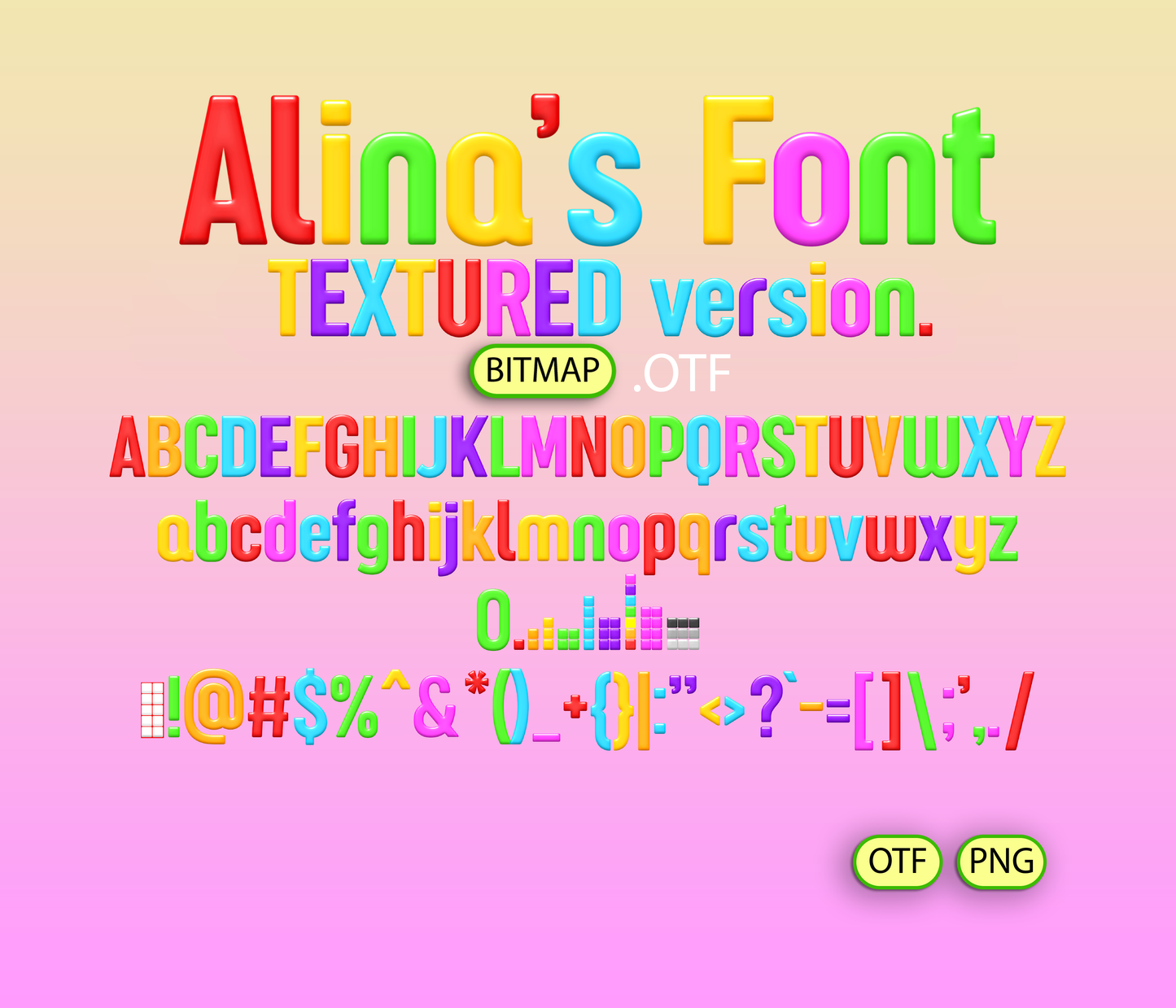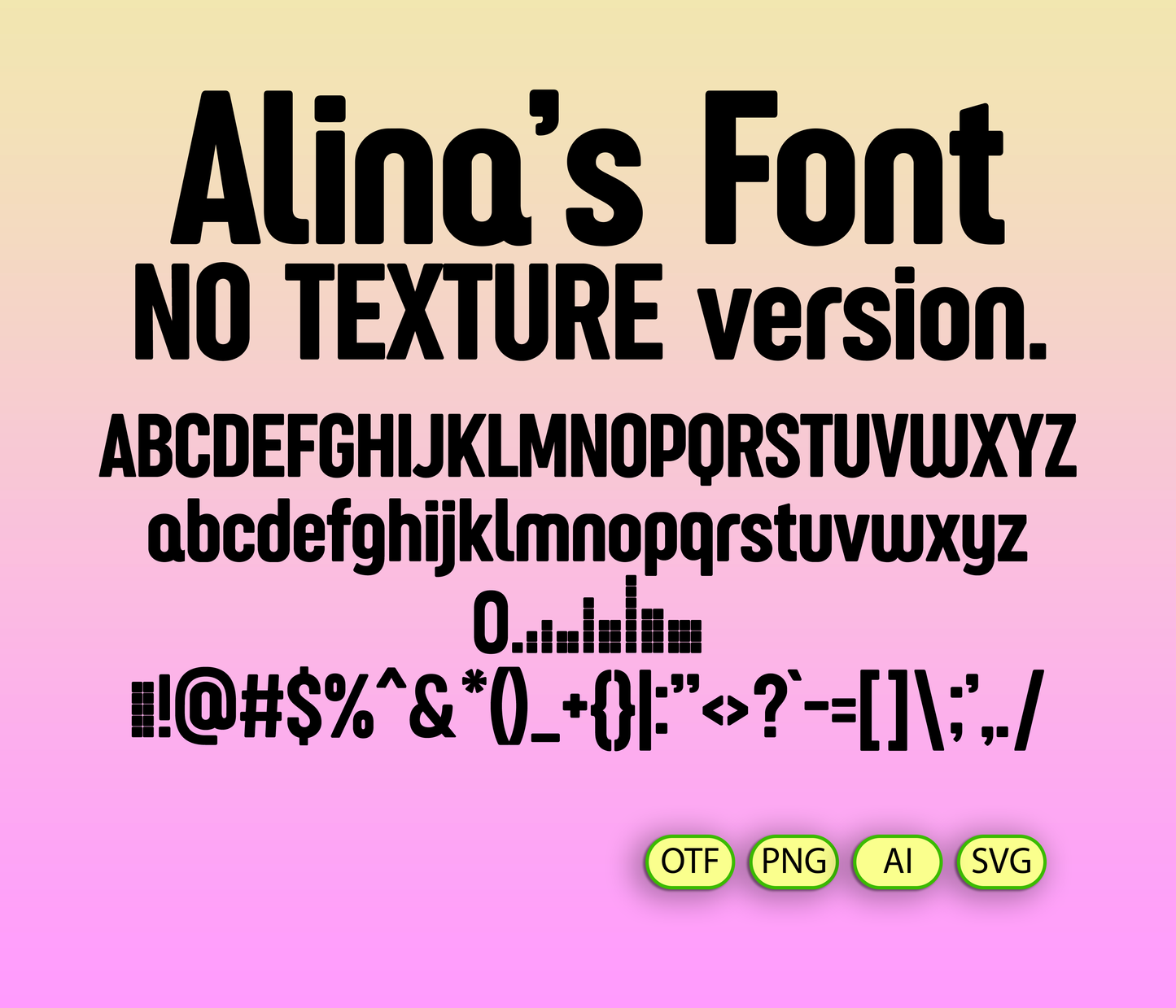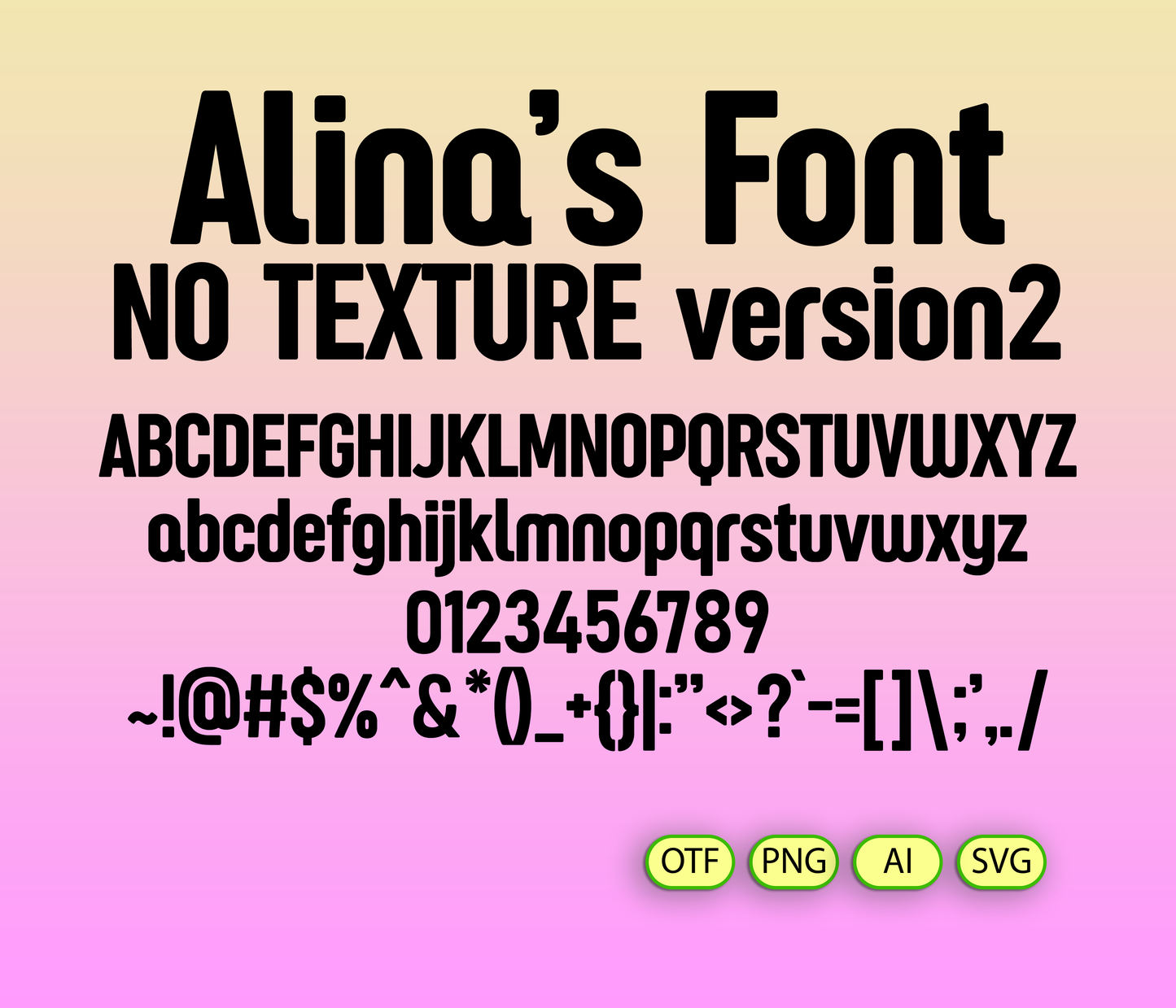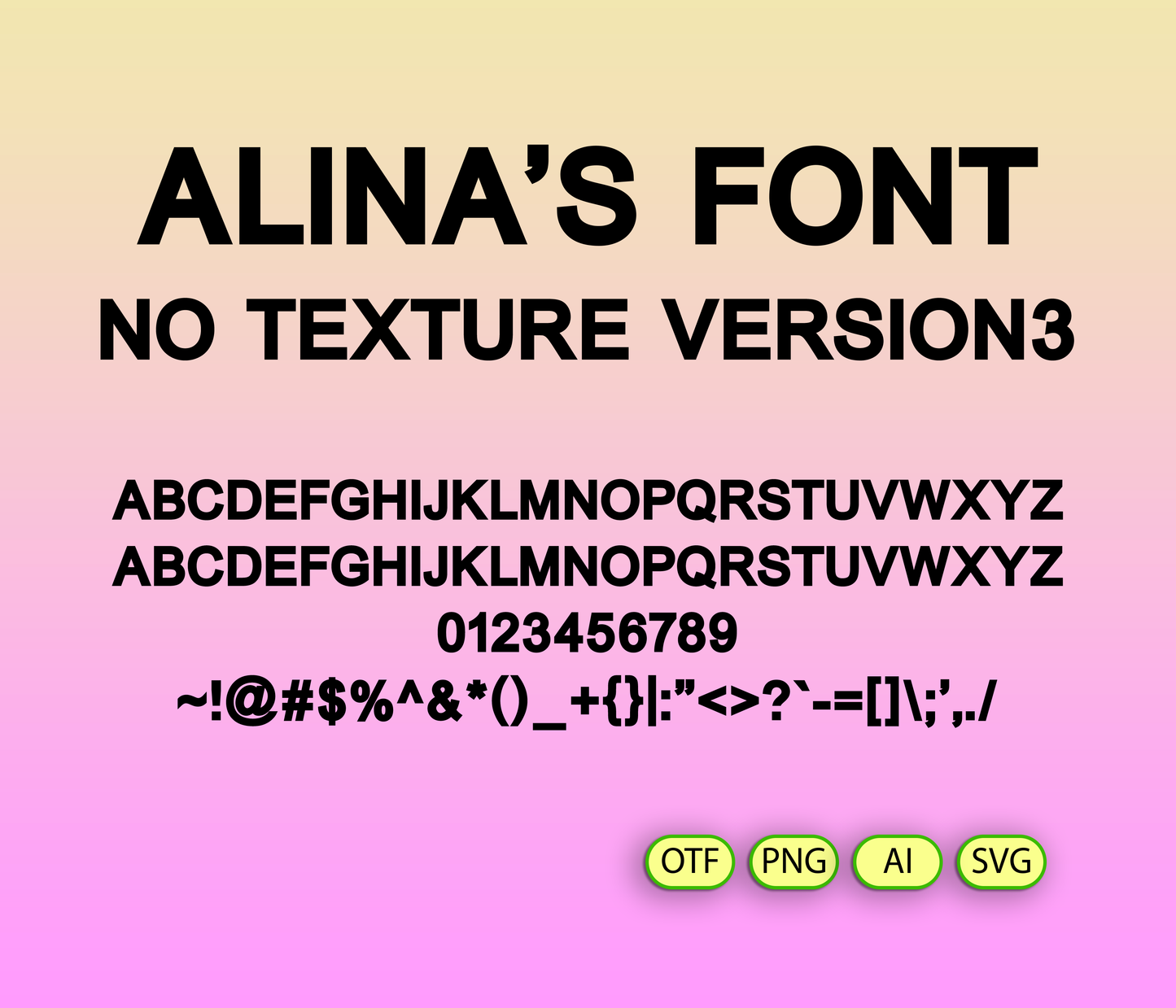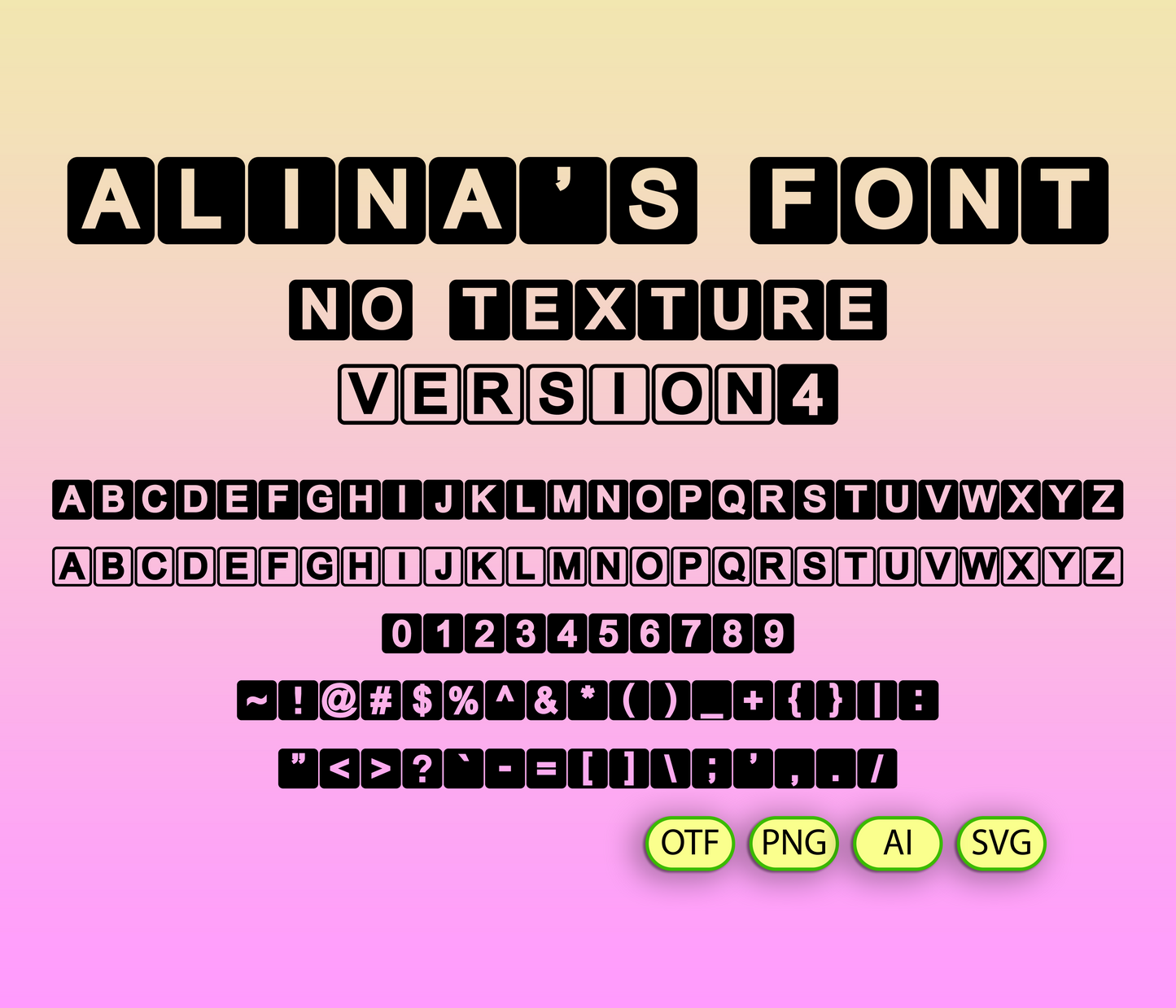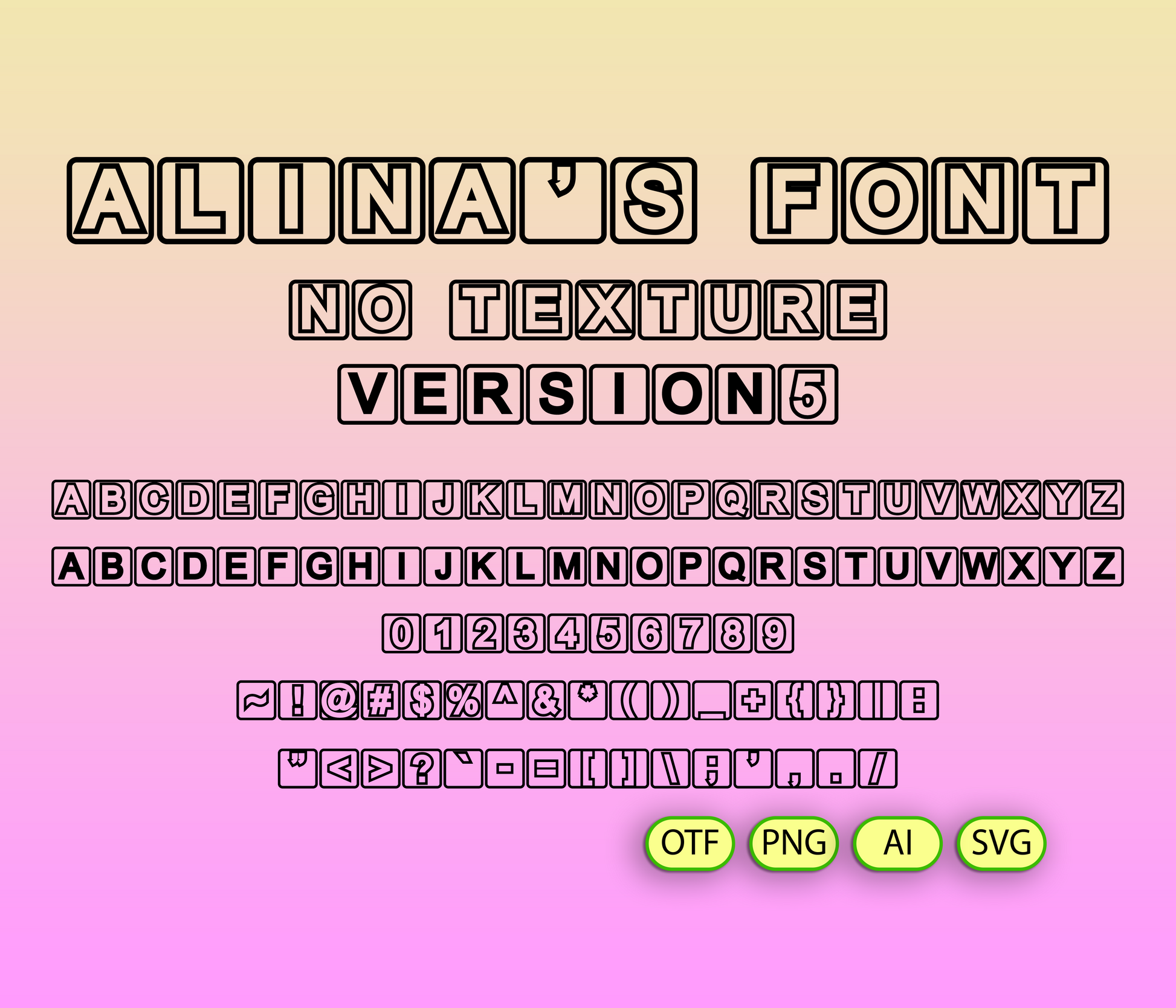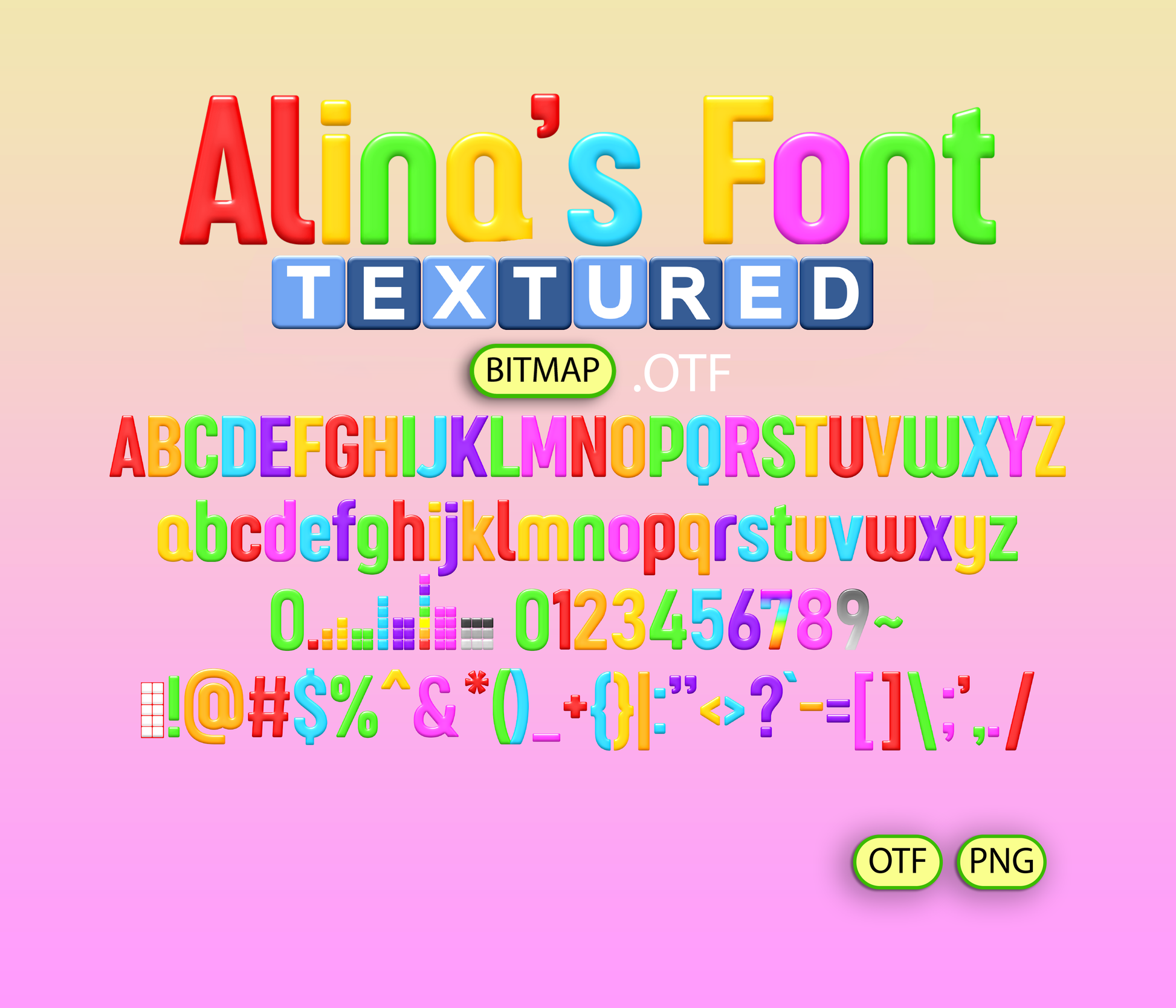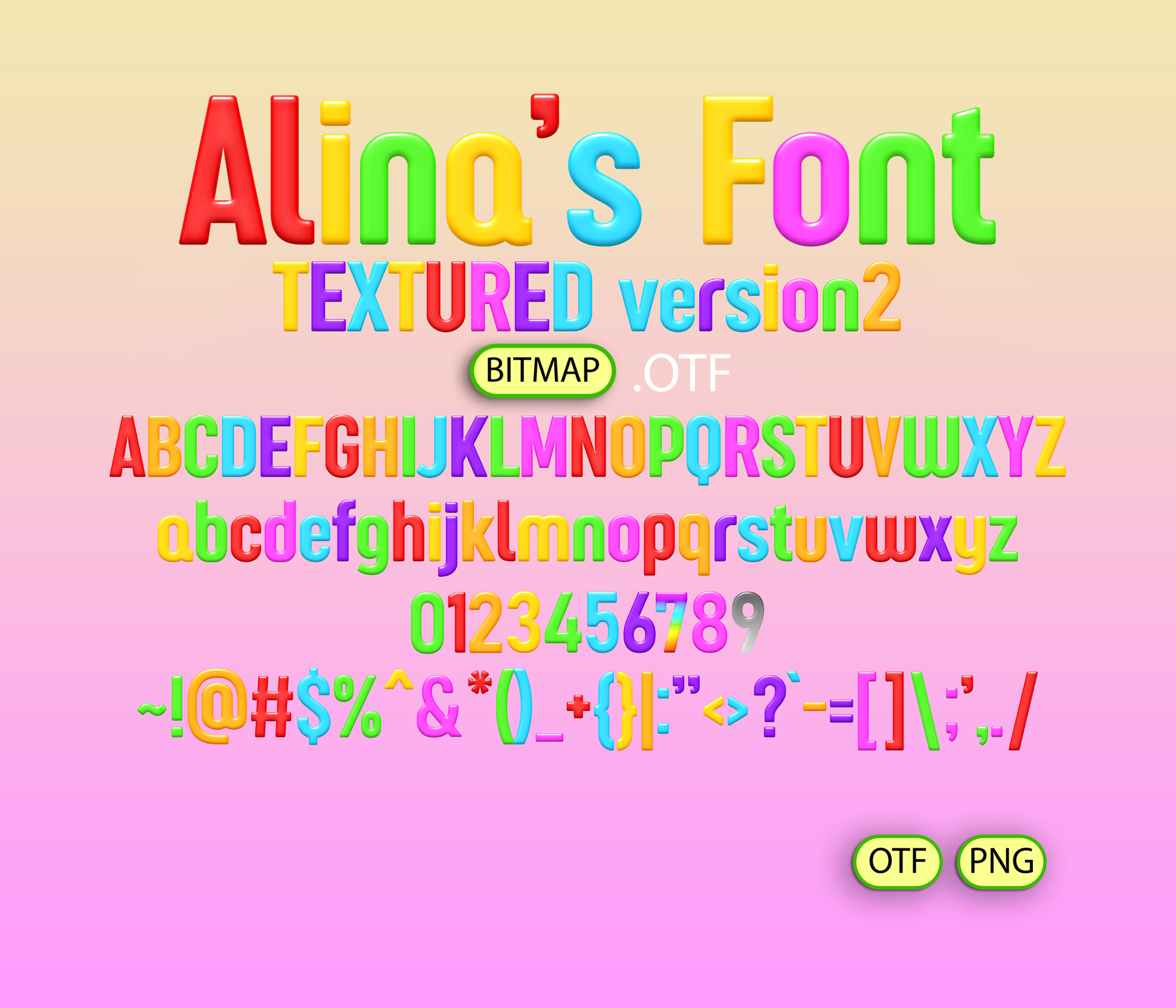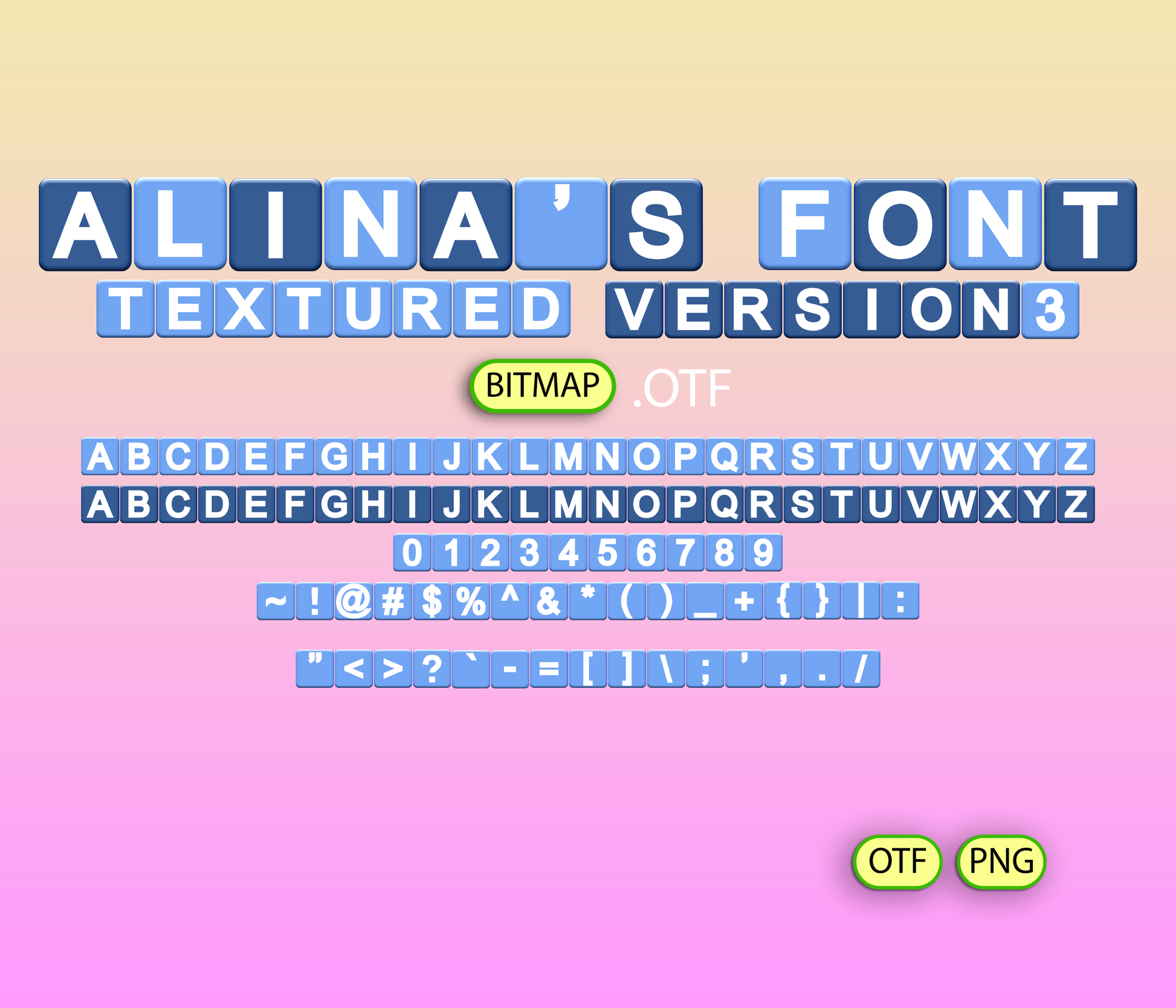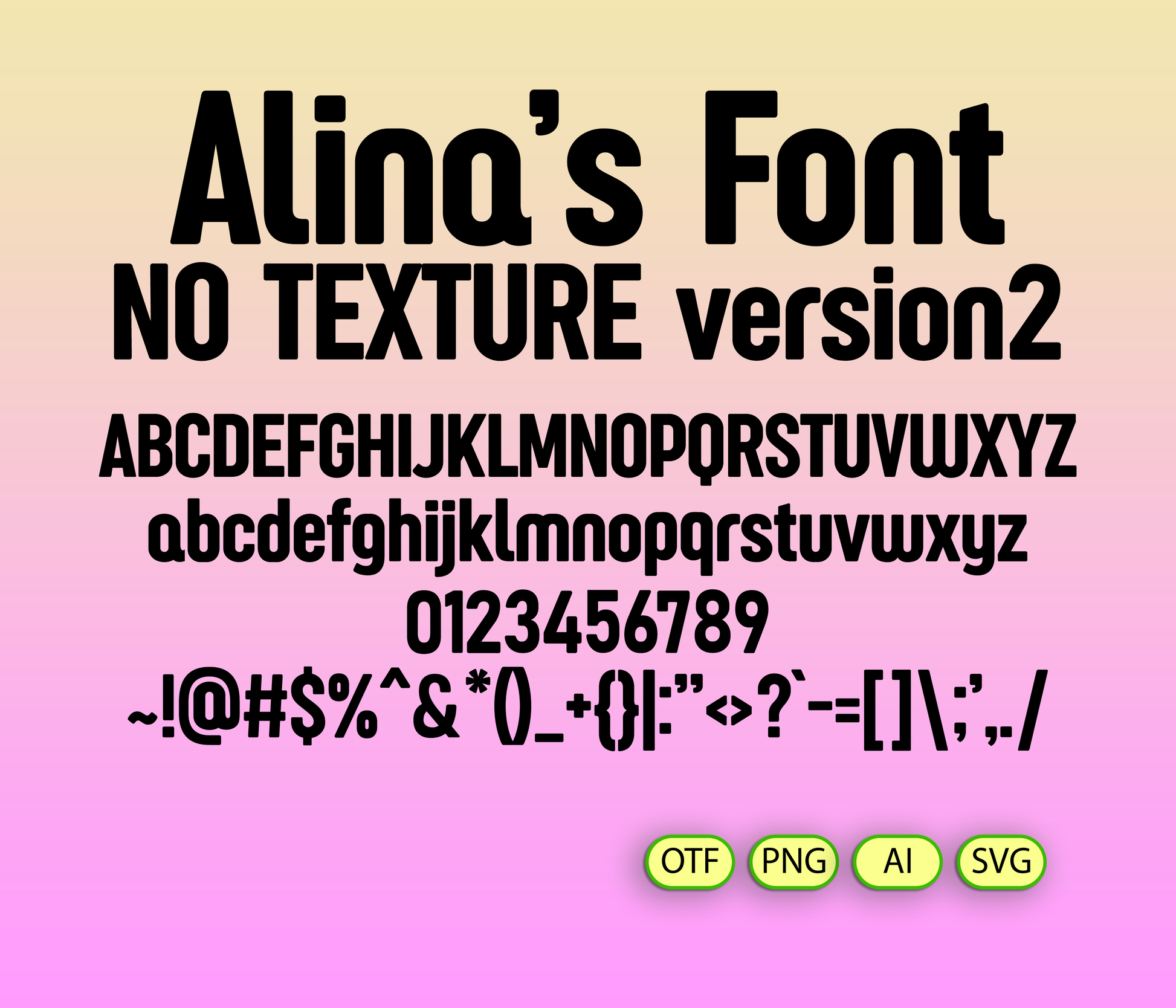
Number Adventures Font Textured Bundle
Learning Fun Font: Inspired by Number Adventures Big Bundle
Dive into the educational and entertaining world with our specially designed Learning Fun font. Perfect for teachers, parents, event planners, and designers looking to capture the playful spirit of a beloved children's series, this font brings the lively essence to your projects. Whether creating educational materials, event invitations, themed merchandise, or digital content, our Learning Fun font ensures your projects are filled with joy and curiosity.
Our Learning Fun-inspired font features bright, bold lines and playful characters reflecting the fun and educational style of the series. This versatile font is ideal for various applications:
Our Learning Fun font includes both textured and non-textured variants. The non-textured version ensures compatibility with all types of software, including Canva, enhancing accessibility and ease of use across various digital and print platforms.
Our Learning Fun font pays tribute to a beloved educational series and empowers you to infuse your designs with its joyful spirit. Whether crafting educational materials, unique merchandise, or personal projects, this font communicates the vibrant essence of Number Adventures. Ready to make learning fun in your creative projects? This font is your key.